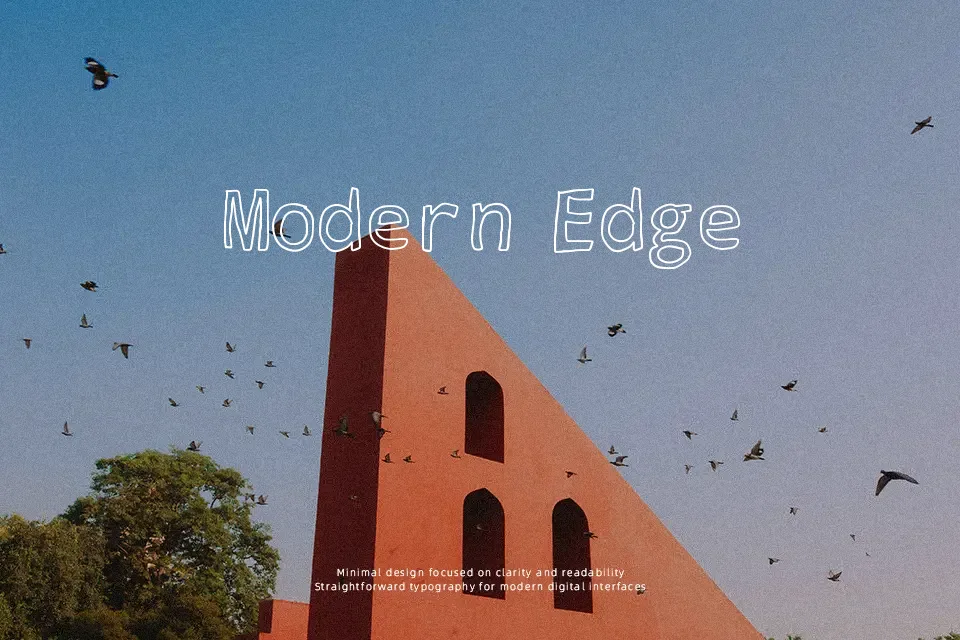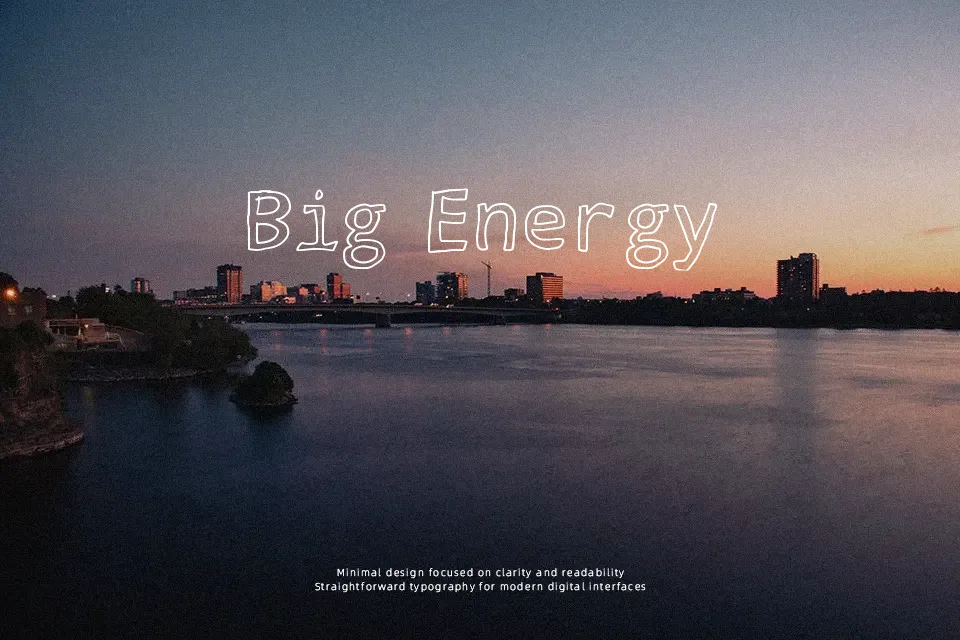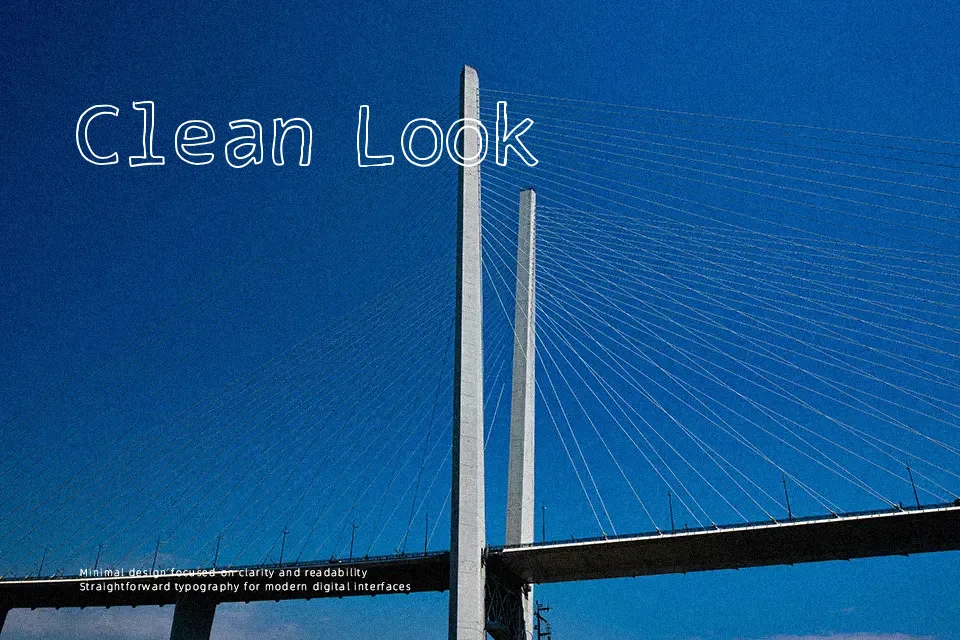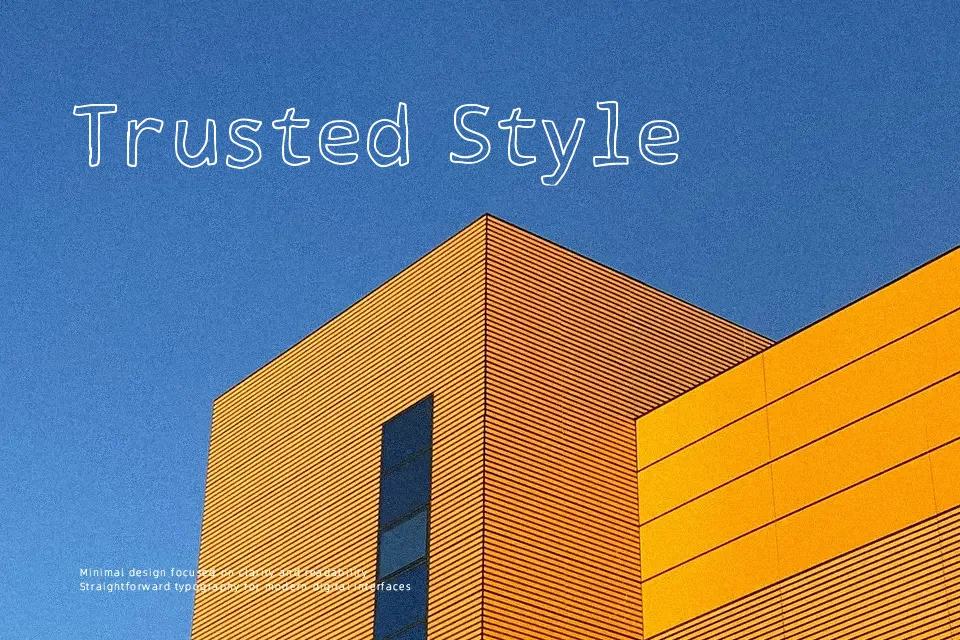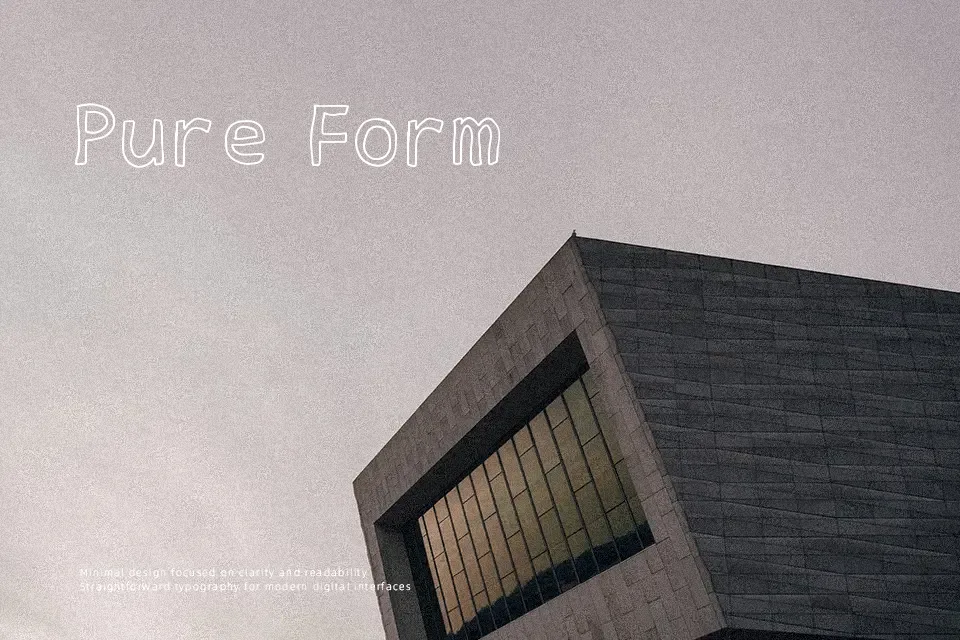
Outline Font
Outline Font uses thin outlined strokes to form informal, hand-drawn characters with open counters and varied contours. The uppercase and lowercase letters have a loose, slightly uneven rhythm rather than a rigid geometric structure, while the numerals and punctuation follow the same lightweight construction. Spacing appears open enough for short words and headings, helping the individual outlines remain distinct at larger sizes. It suits craft-themed labels, playful poster copy, and social graphics that need a casual drawn look. The delicate strokes make it less dependable in small text, and continuous reading can feel fragmented. In practice, it is most effective when given room and used for brief display text.
Best For: craft product labels,poster headlines,social media graphics,casual logo text
Perfect for headline, logo, and poster, with a creative and decorative style.